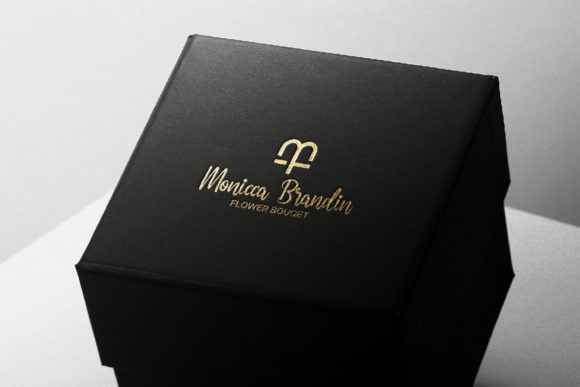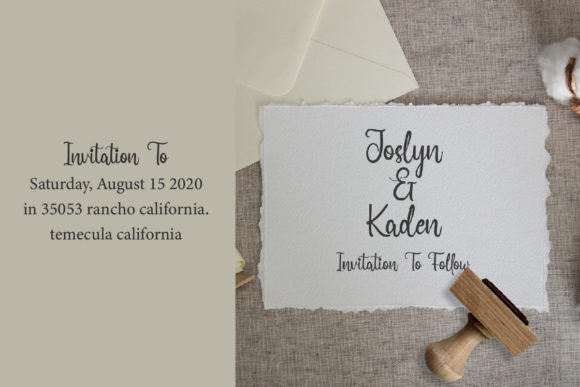
Daringness Font
db-ku.com - Script & Handwritten -- Daringness is a calligraphy handwriting font combining modern and classic typography with a beautiful look. This font is crafted carefully in every single letter and was inspired by the handwriting of Italian women and ancient manuscripts. This one should make your designs instantly professional and jaw-dropping!